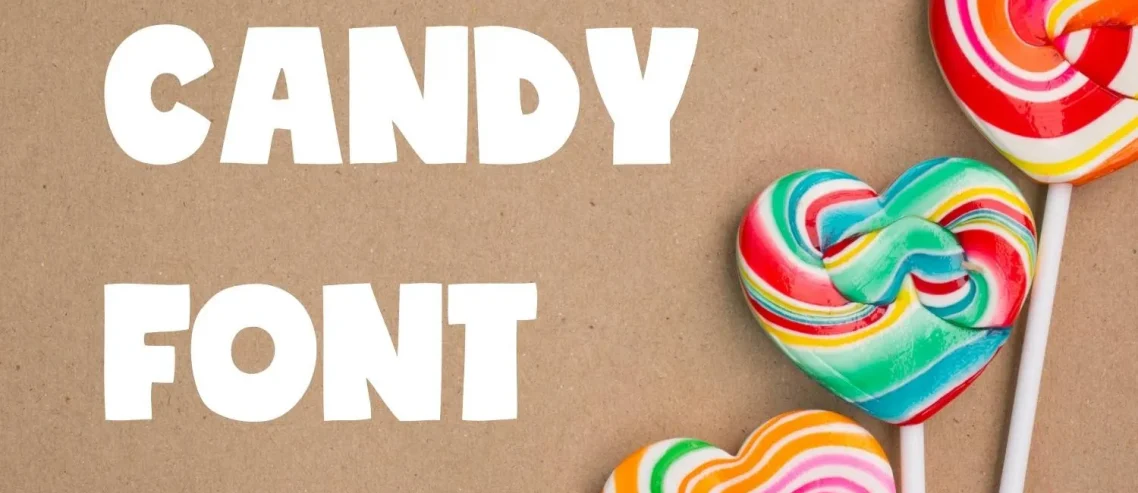
Candy font is a type of font that is often used for children’s stories or to accompany bright pictures. candy font is very similar to a Grobold Font, and it can be used as a playful way to write letters and cards.
View of Candy Font
Candy Font